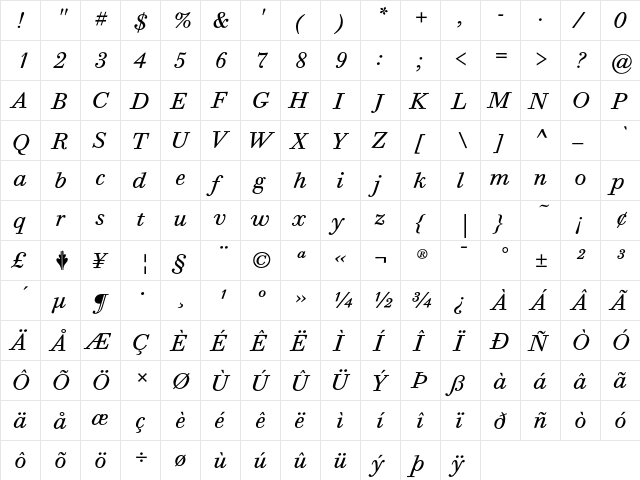
BodoniSixEF BookItalic Font Preview
BodoniSixEF BookItalic
Design Context for BodoniSixEF Typeface
BodoniSixEF takes a measured approach to typography — its balanced proportions and neutral character make it a reliable workhorse for both digital and print work. Its italic angle brings a sense of urgency and motion to the letterforms.
Pro Tip: Try BodoniSixEF for annotation and caption copy alongside an upright companion — the contrast in angle creates a dynamic but ordered typographic system.